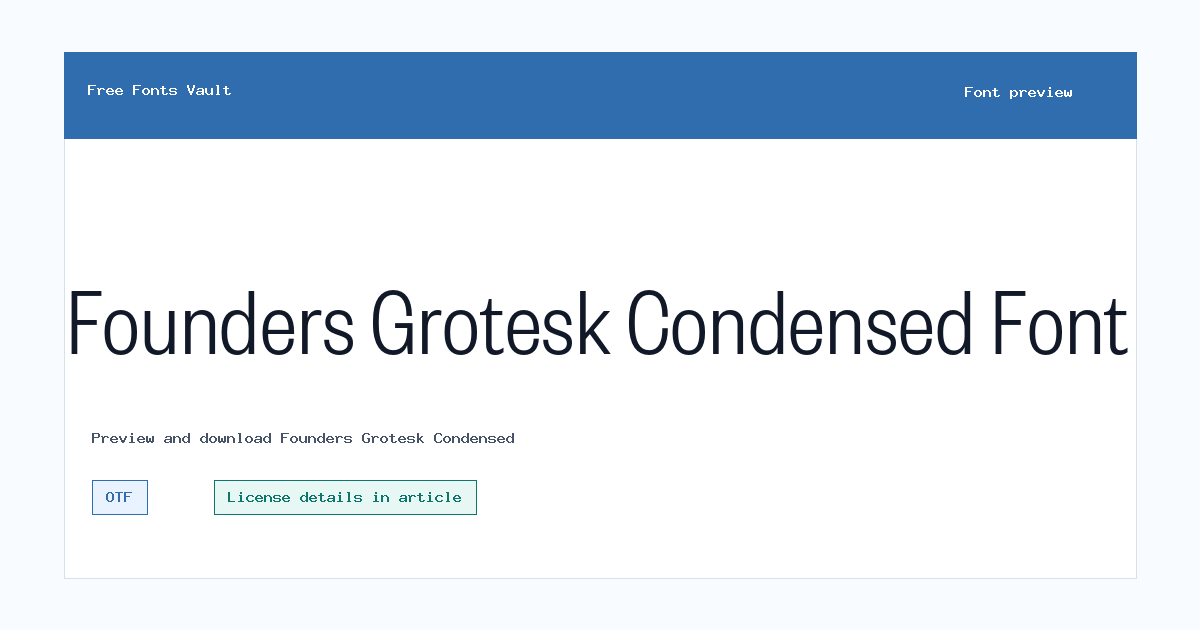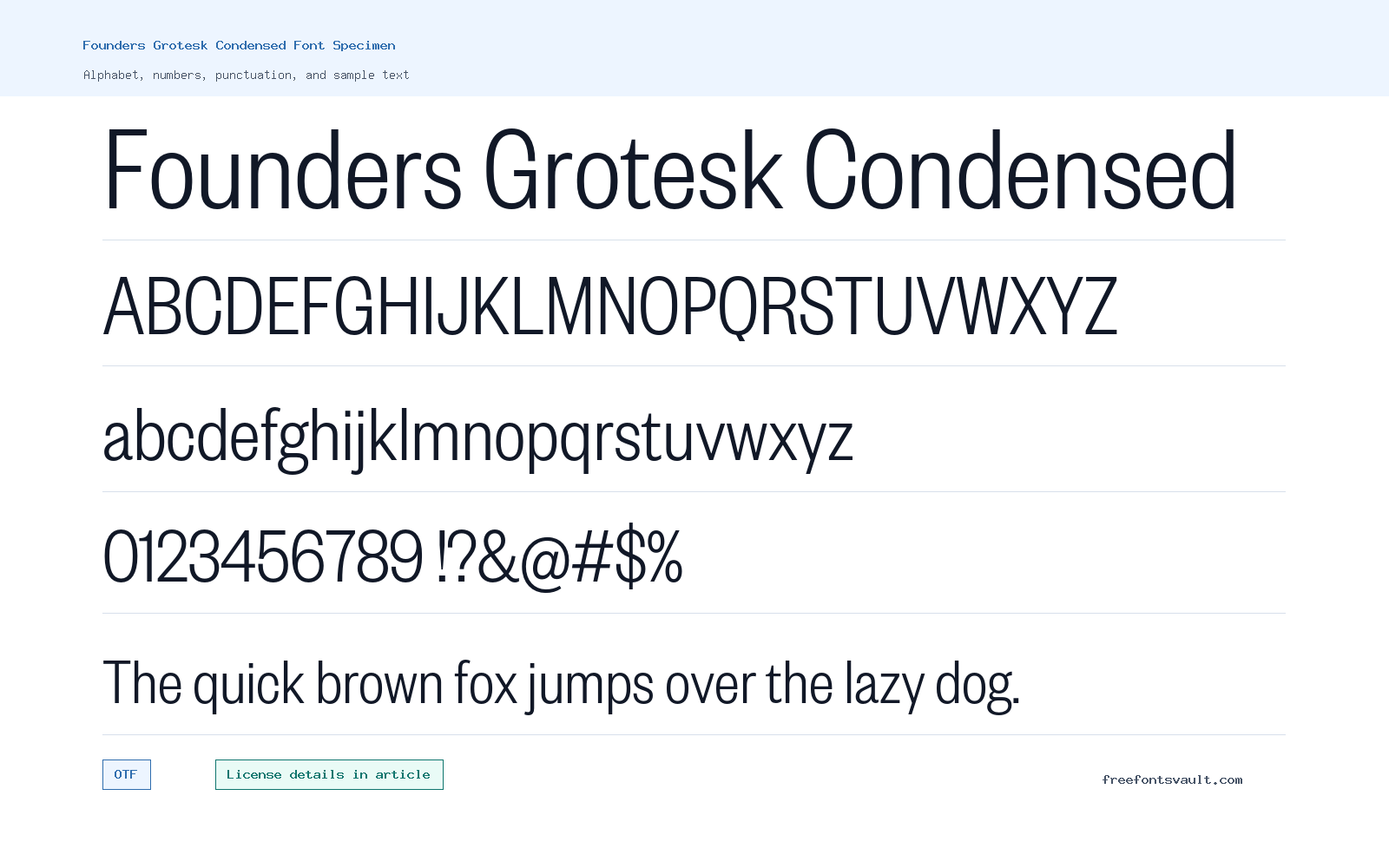
Founders Grotesk Condensed
- Designer Kris Sowersby
- Foundry Klim Type Foundry
Founders Grotesk Condensed font.
Founders Grotesk Condensed is a narrow grotesk-style font family associated with Kris Sowersby and Klim Type Foundry. The downloadable file listed here is an OTF light-weight style, useful when you want compact lettering with a clean, restrained voice.
About Founders Grotesk Condensed
Founders Grotesk Condensed works best when space is tight but the text still needs a serious sans-serif tone. Its condensed proportions make words take up less horizontal room than a regular-width grotesk, while the light weight keeps the texture lean and understated. That combination can be useful for large headings, magazine-style titles, navigation labels, posters, deck covers, and short editorial lines where width matters.
Because the file shown here is a light OTF style, test it carefully before using it in small sizes. Thin strokes can lose strength on low-resolution screens, over busy images, or in pale color combinations. Try the preview with uppercase, lowercase, numbers, punctuation, and the exact words you plan to set. For longer reading, pair it with a more open text face and keep Founders Grotesk Condensed for headings, pull quotes, labels, or short blocks.
This style is most useful when a regular-width grotesk feels too wide but a very decorative condensed face would be too loud. Try it for sober headlines, navigation systems, catalog labels, or editorial layouts where the letters need to save space without becoming playful. If the light weight feels too soft, increase contrast, size, or spacing before switching to heavier styling.
- Condensed sans-serif proportions for fitting strong text into narrow spaces
- Condensed light grotesk texture for restrained, space-saving hierarchy
- Headlines, posters, banners, covers, and display typography where a narrow sans-serif is useful
- Short labels, menu items, editorial decks, and branding mockups that need compact spacing
- Editorial navigation, catalog headings, deck covers, and clean brand mockups
Kris Sowersby is named as the designer, with Klim Type Foundry named as the foundry.
Use the preview to check spacing, thin-stroke clarity, and how your real text behaves at the size you need. A condensed light style is usually strongest in short text, not dense paragraphs. When pairing it with other fonts, let the condensed style handle hierarchy and use a wider text face for paragraphs, captions, and instructions.
Is Founders Grotesk Condensed good for body text?
It is better suited to short text and display use. For long paragraphs, test readability carefully or pair it with a wider, more comfortable text font.
Who designed Founders Grotesk Condensed?
The entry names Kris Sowersby as the designer and Klim Type Foundry as the foundry.